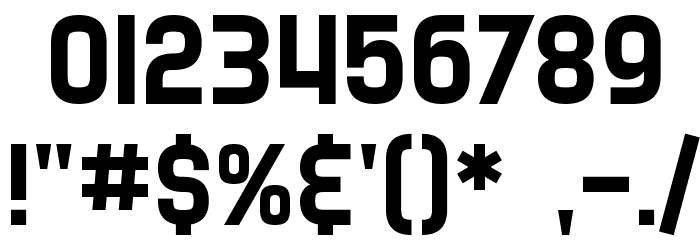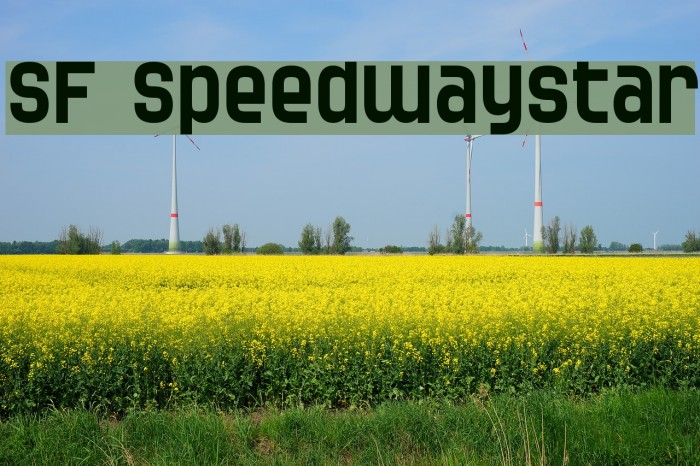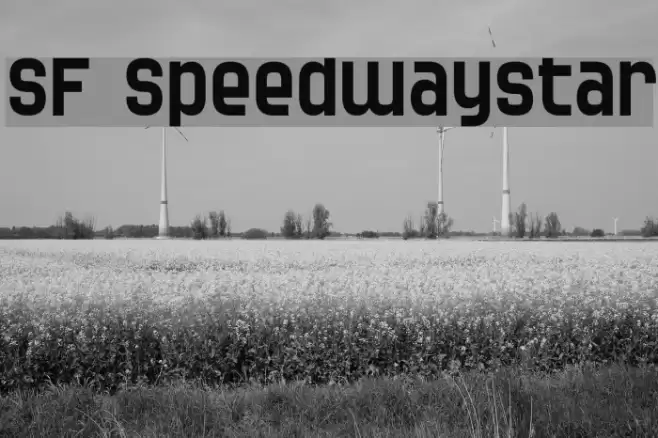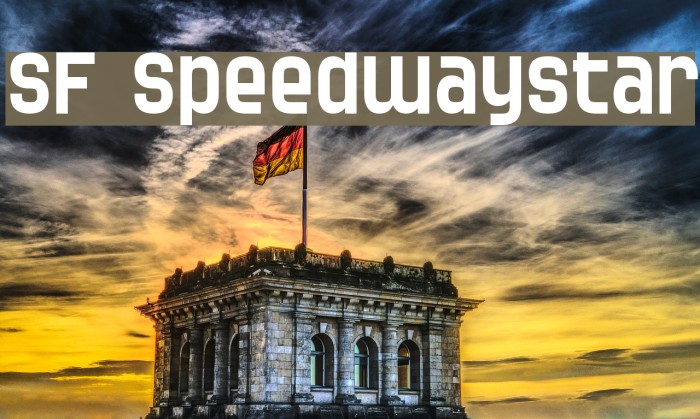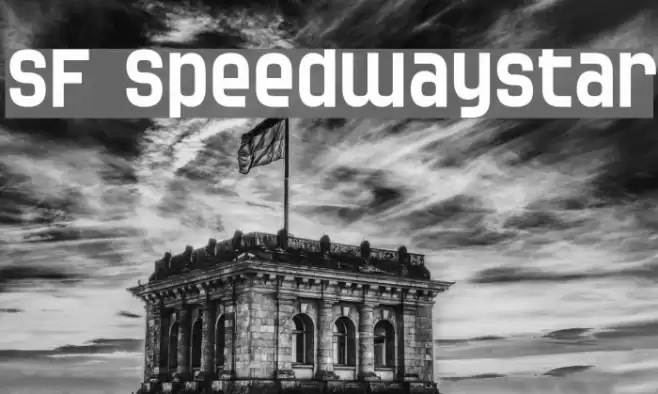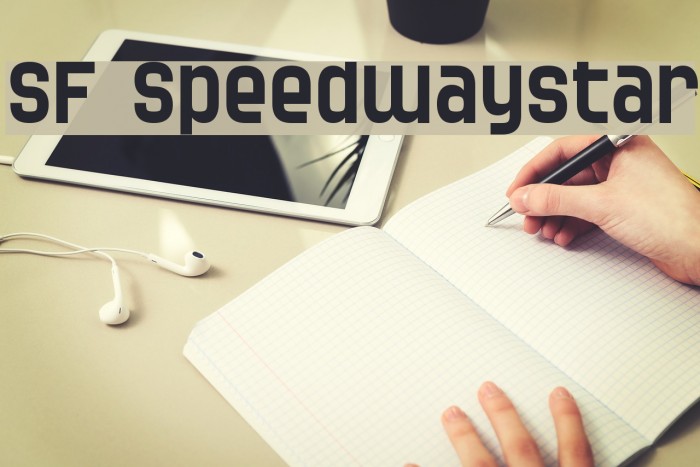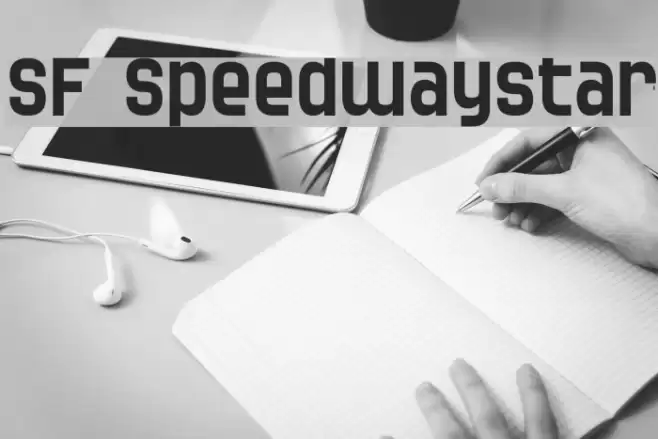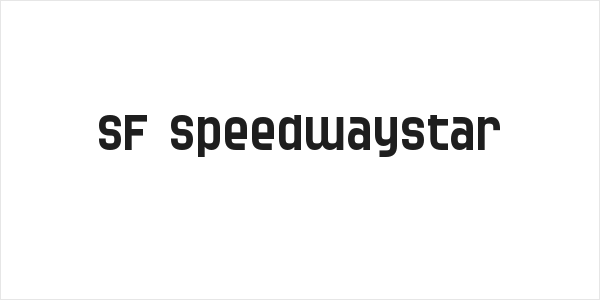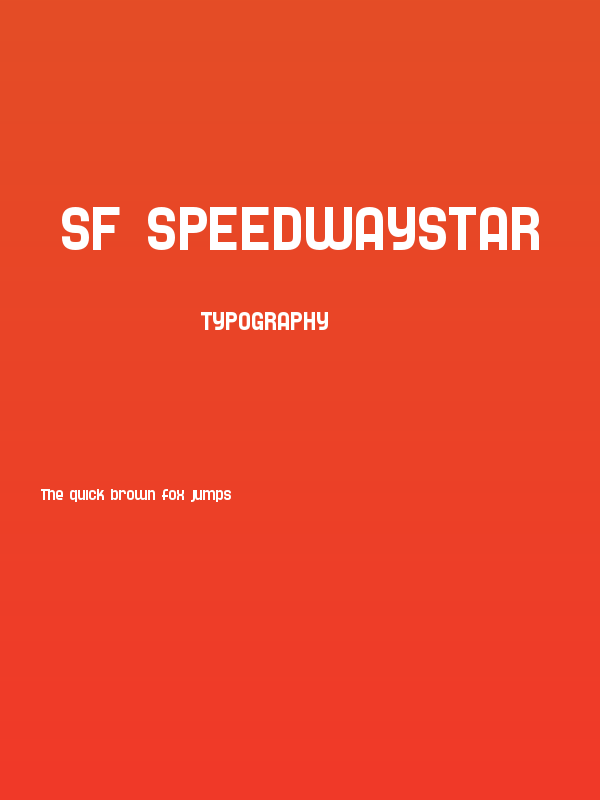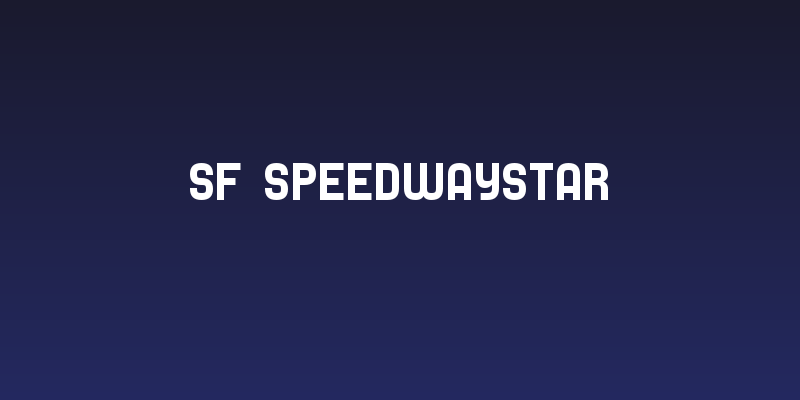
SF Speedwaystar Font
SF Speedwaystar Description
This font features a bold, geometric sans-serif style with a modern and sporty aesthetic. The characters are uniform in width, creating a monospaced appearance that enhances readability and consistency. The design is clean and straightforward, with rounded edges that soften the overall look. The uppercase and lowercase letters maintain a cohesive style, while the numerals and special characters are distinct and easily distinguishable. This font is ideal for projects that require a contemporary and dynamic feel, such as sports branding, automotive designs, or tech-related themes.
| Proposed Projects | Ideal for sports branding, automotive designs, tech-related themes, and dynamic advertising. |